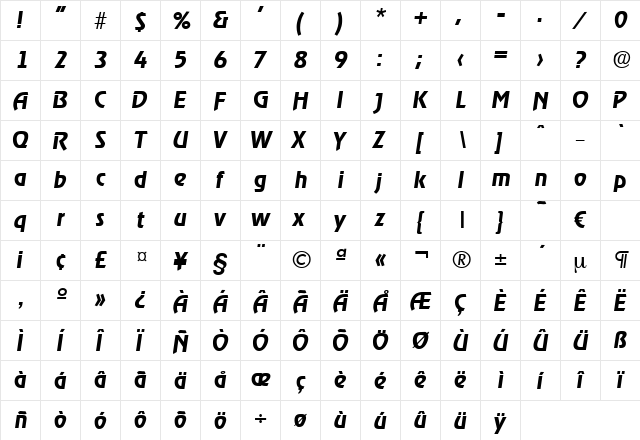
Ragtime-DemiBoldIta Regular
Design Context for Ragtime-DemiBoldIta Typeface
Ragtime-DemiBoldIta offers clean, dependable letterforms without strong stylistic allegiance, making it a practical choice for designers who need flexibility. Its bold stroke weight gives it real presence on the page.